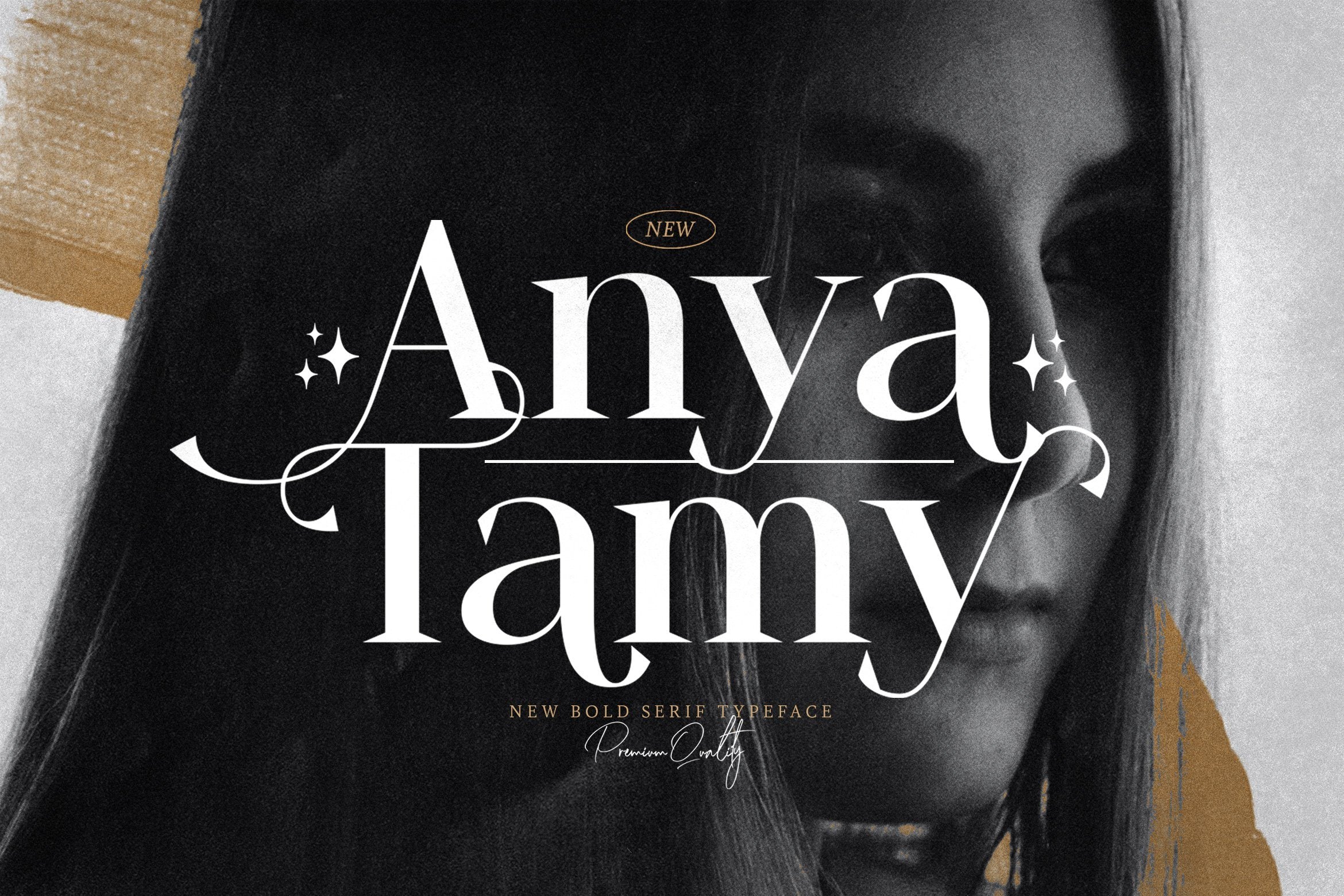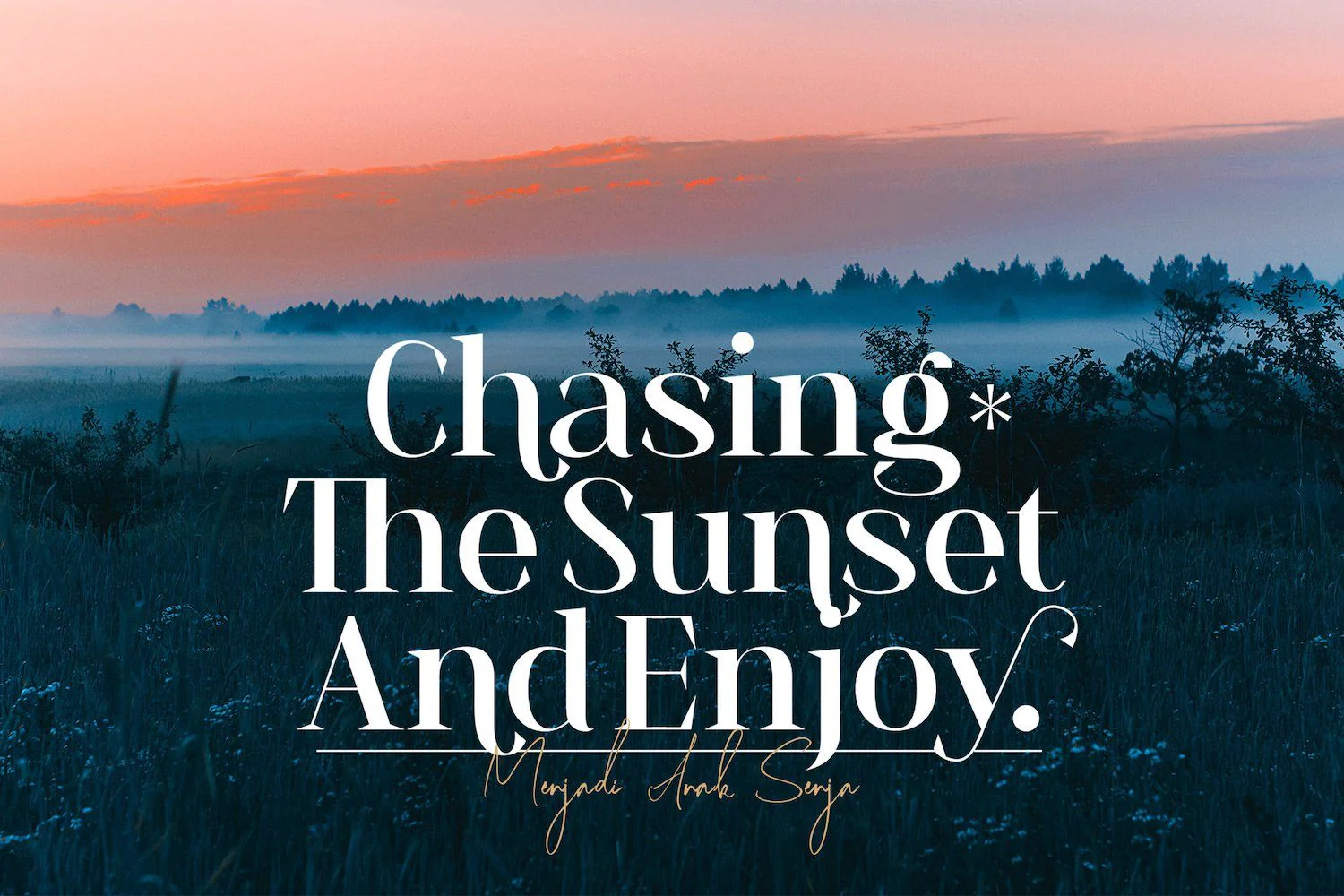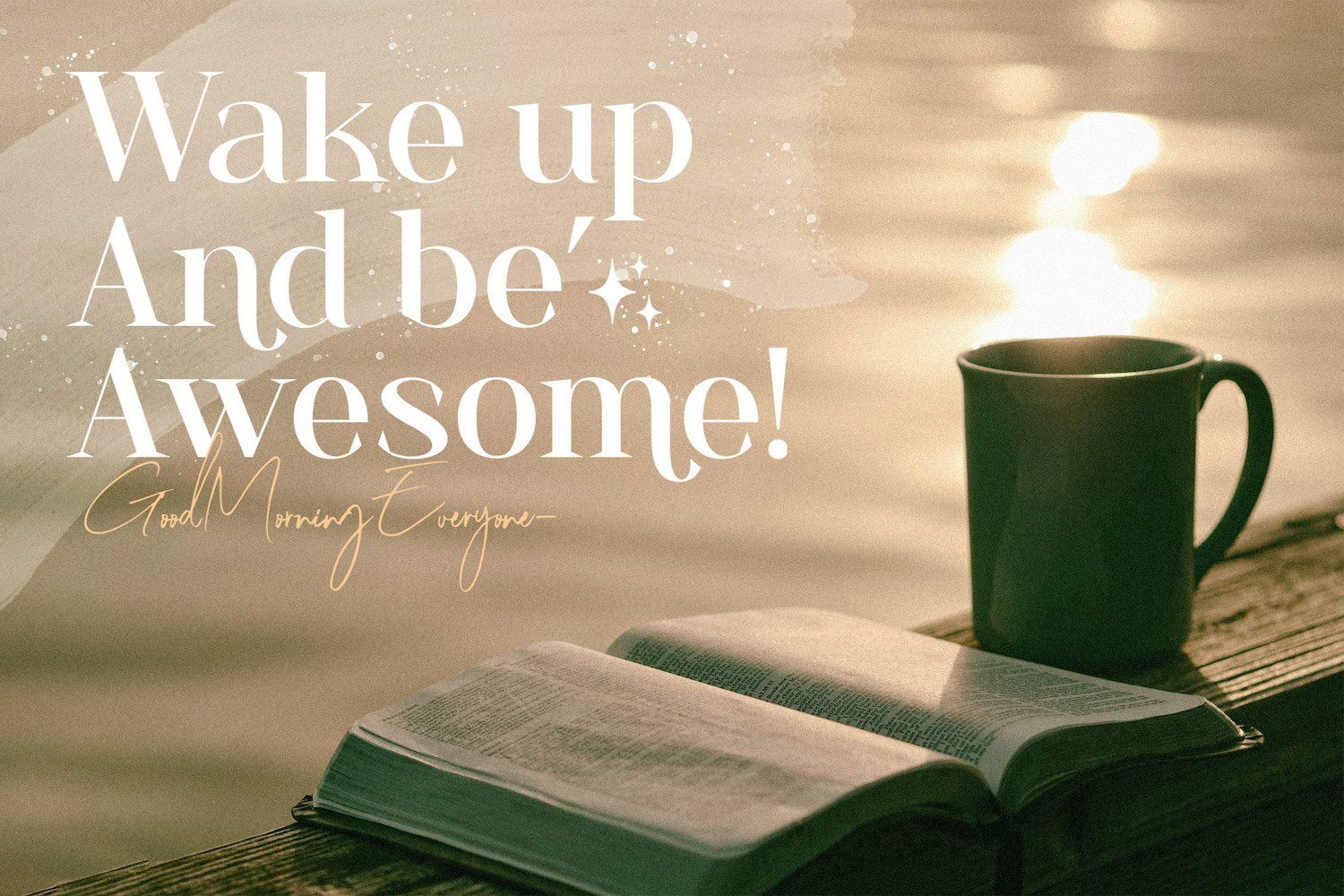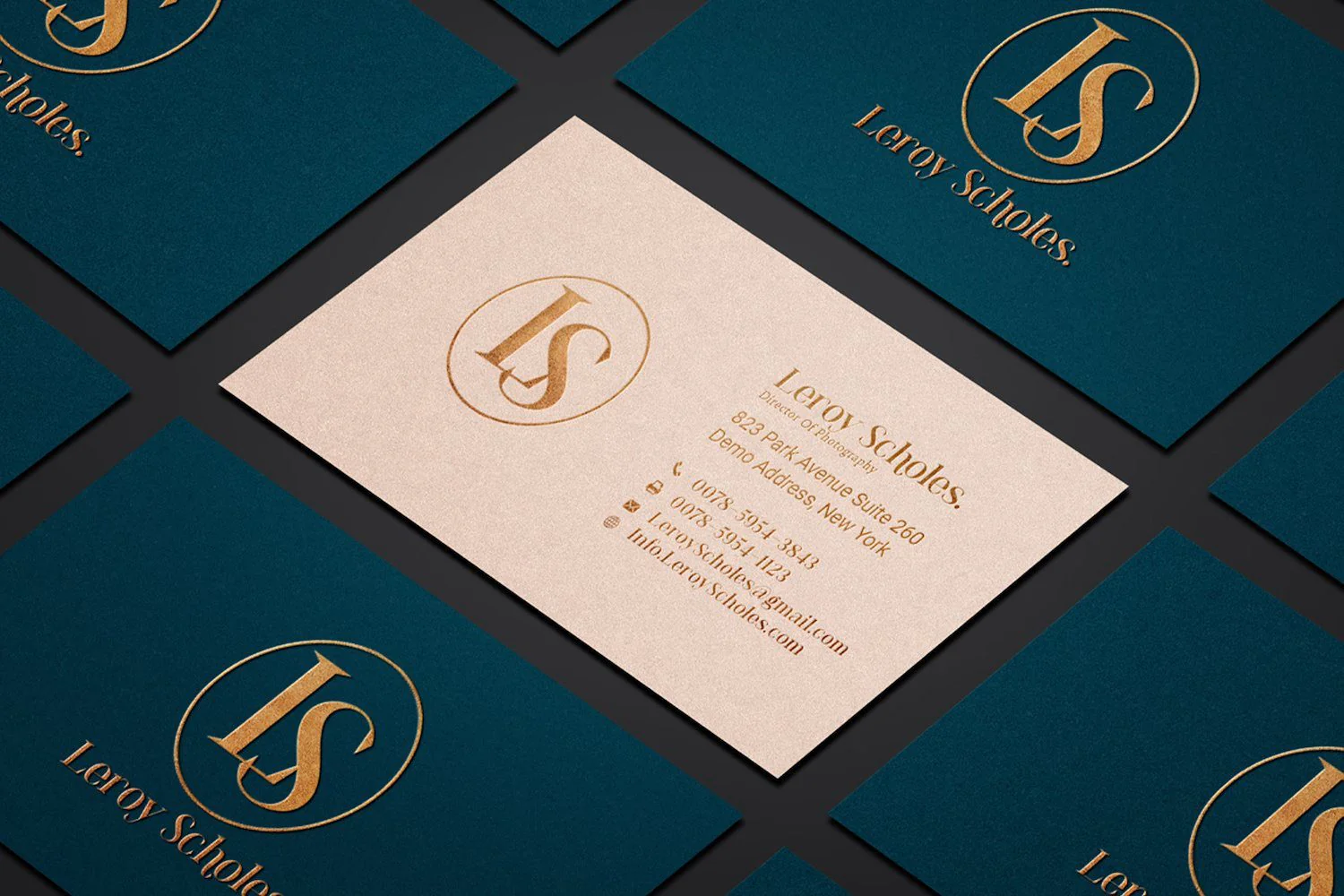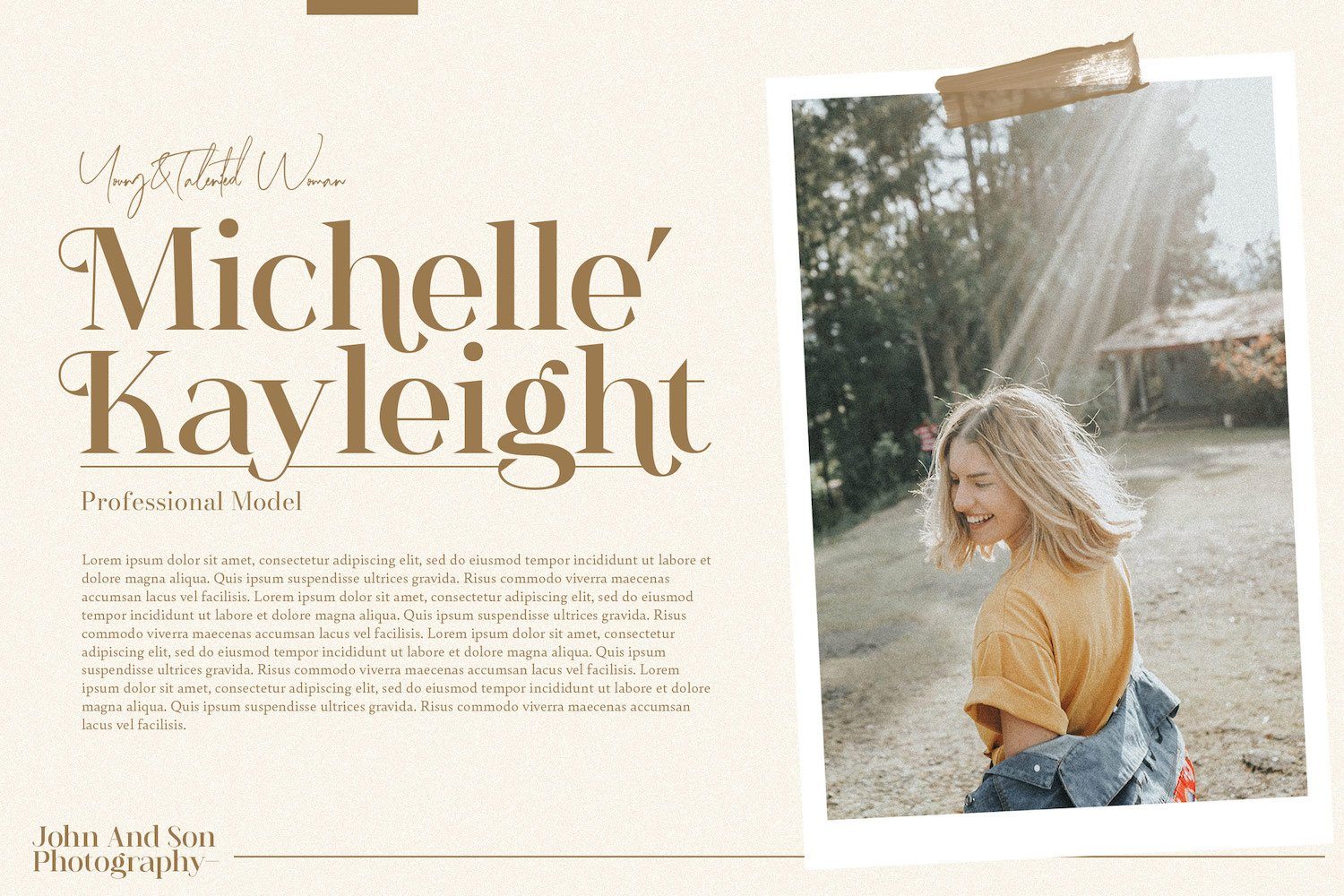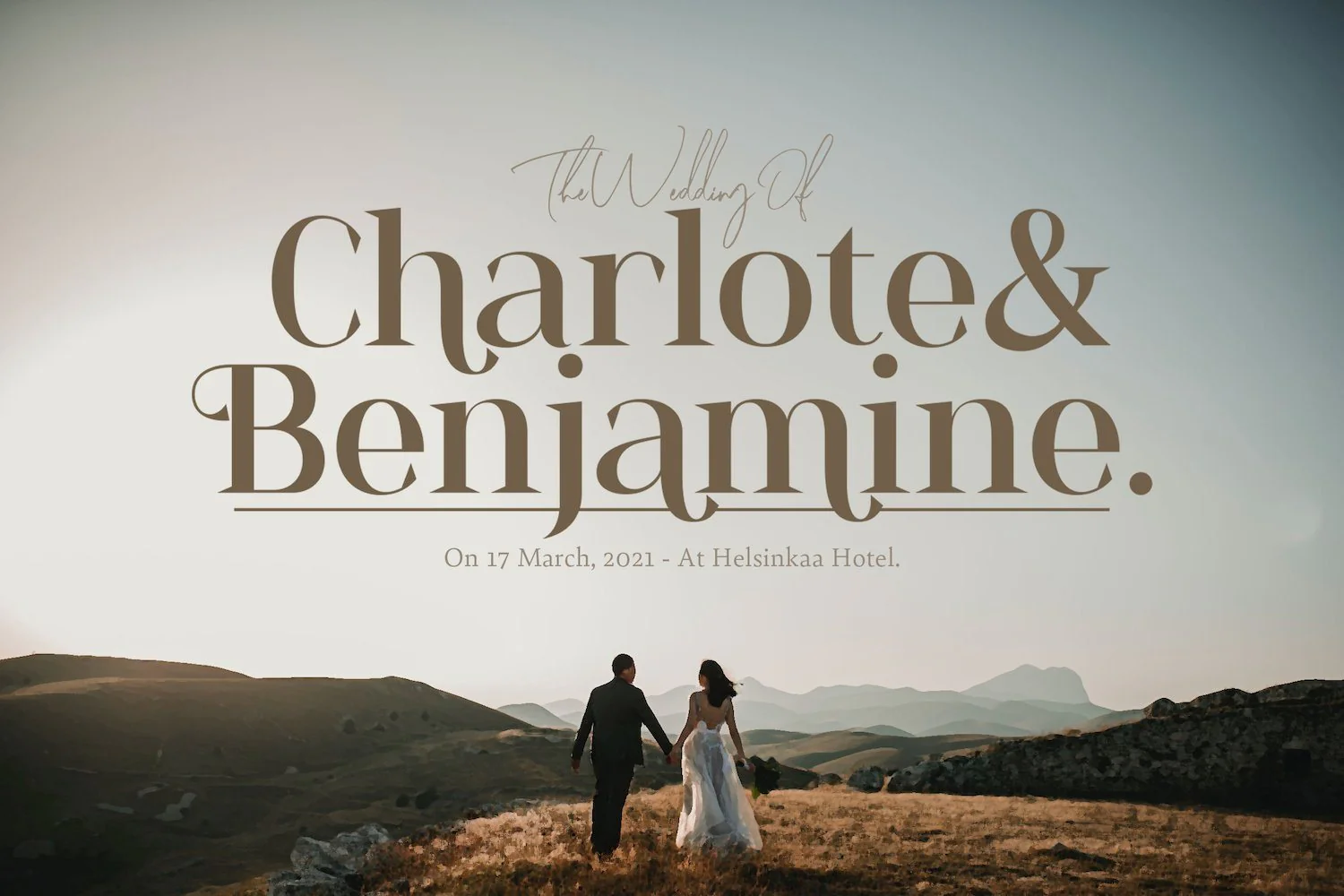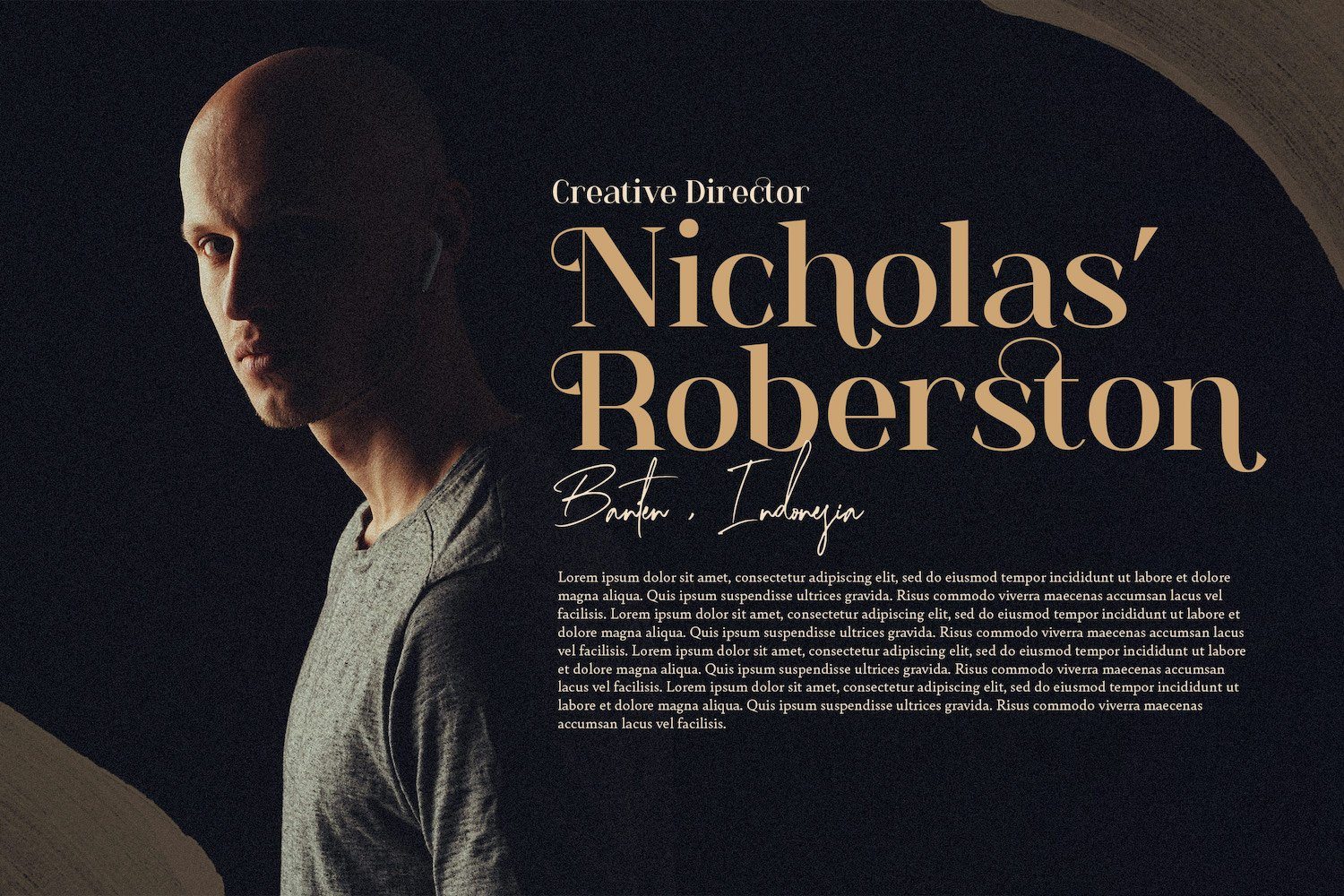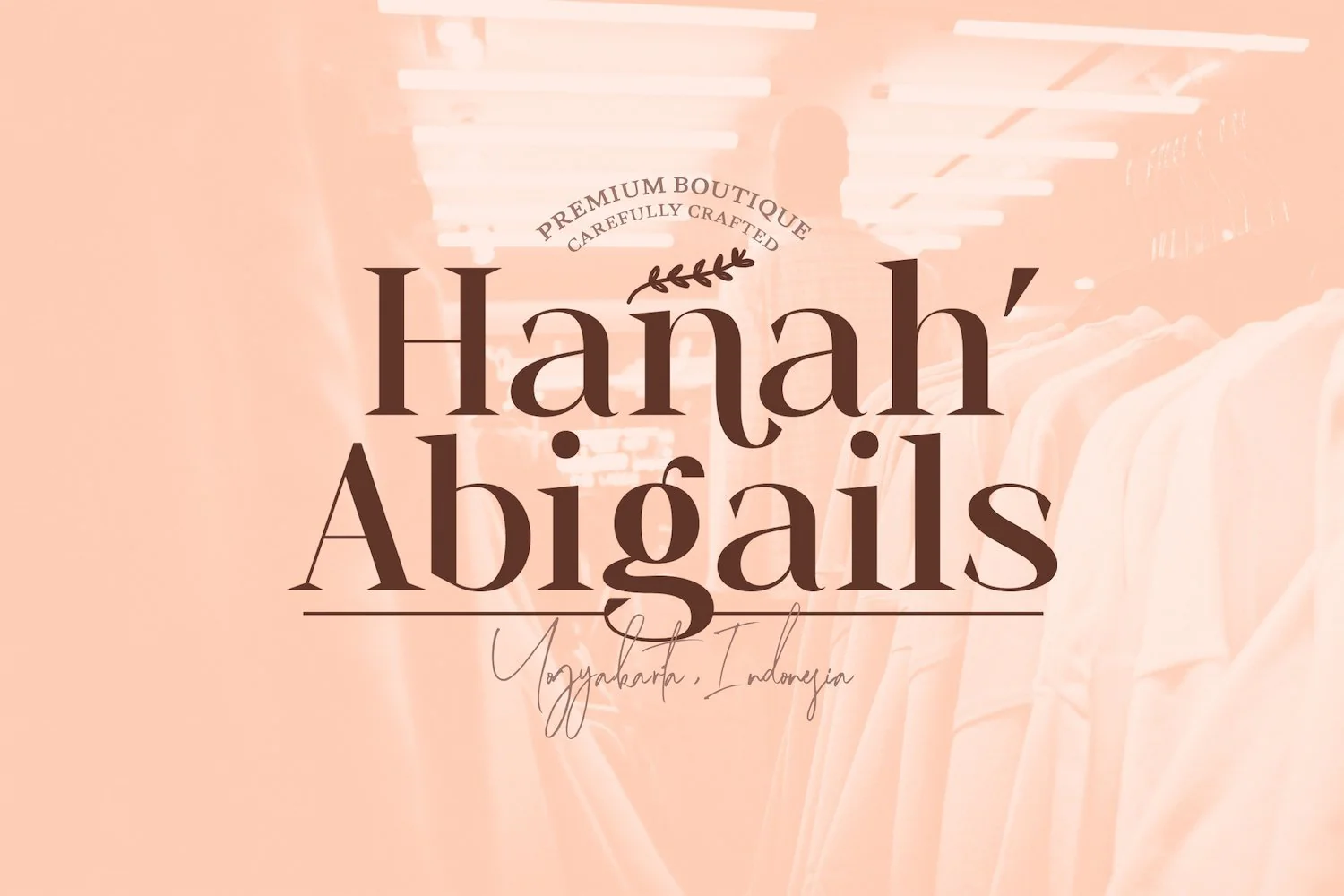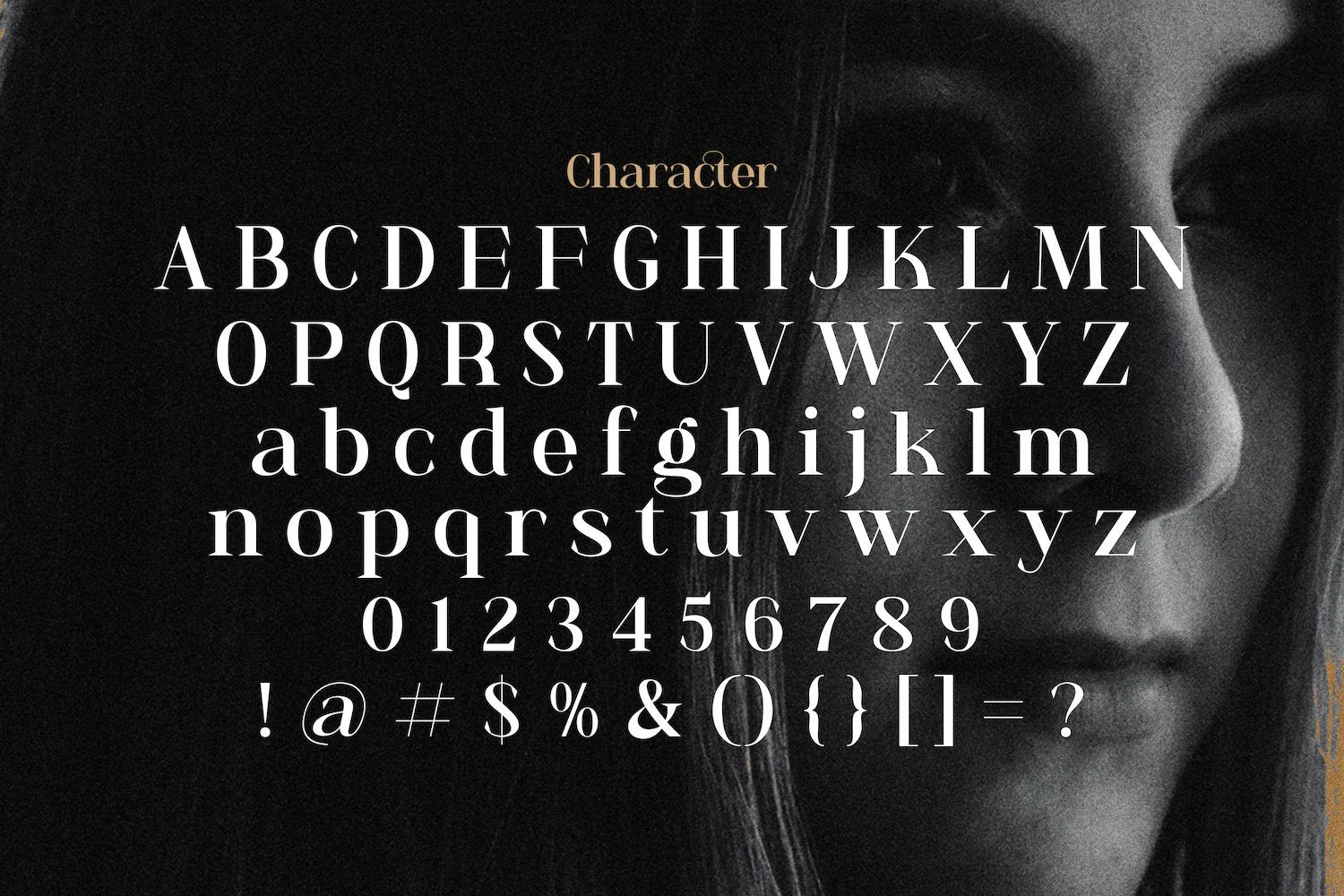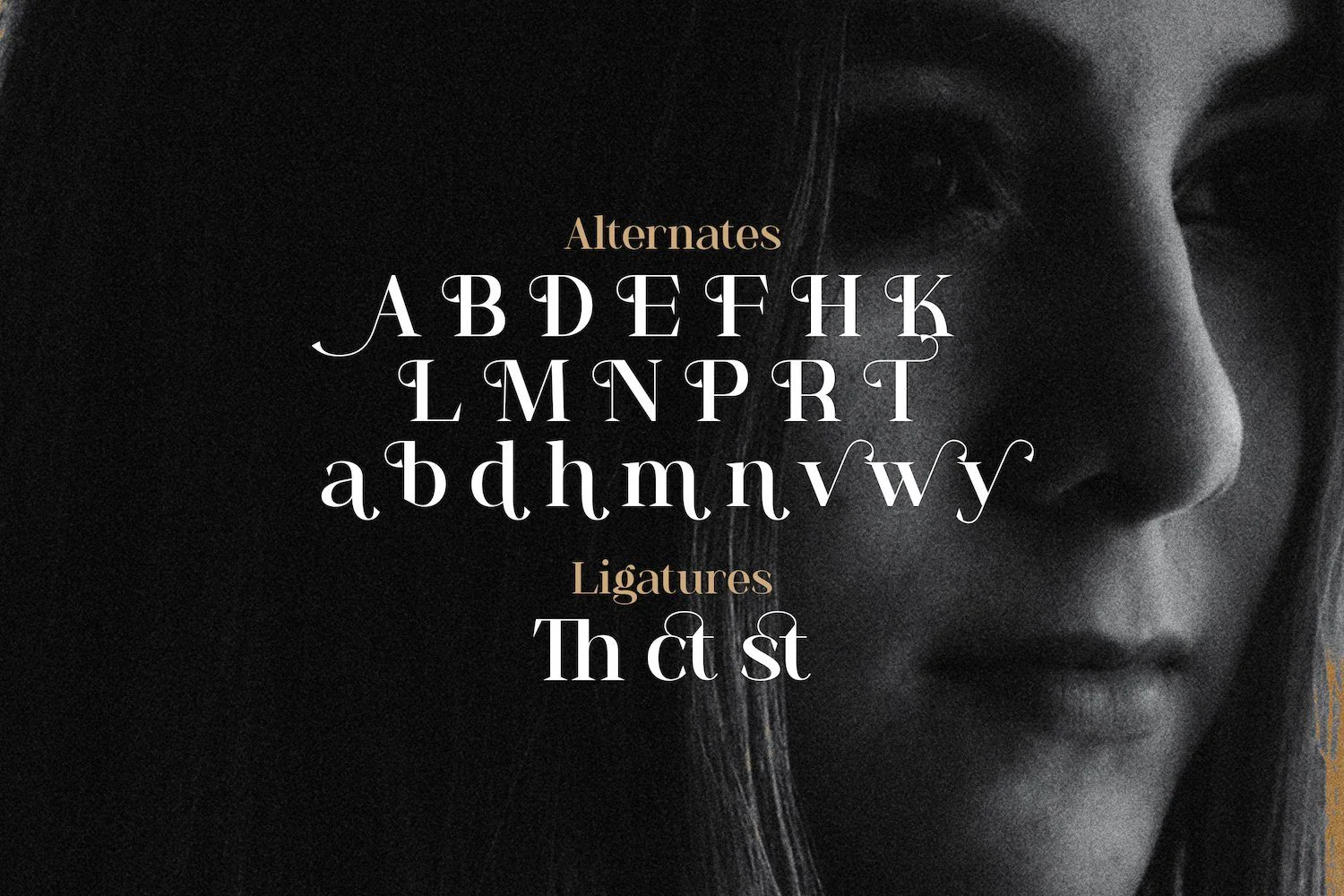
Anya Tamy - Classic Serif Font
Introducing Anya Tamy - Classic Serif Font
Anya Tamy is an authentic and neat serif font. It can easily be matched to an incredibly large set of projects, so add it to your creative ideas and notice how it makes them stand out!
Introducing Anya Tamy - Classic Serif Font
Anya Tamy is an authentic and neat serif font. It can easily be matched to an incredibly large set of projects, so add it to your creative ideas and notice how it makes them stand out!